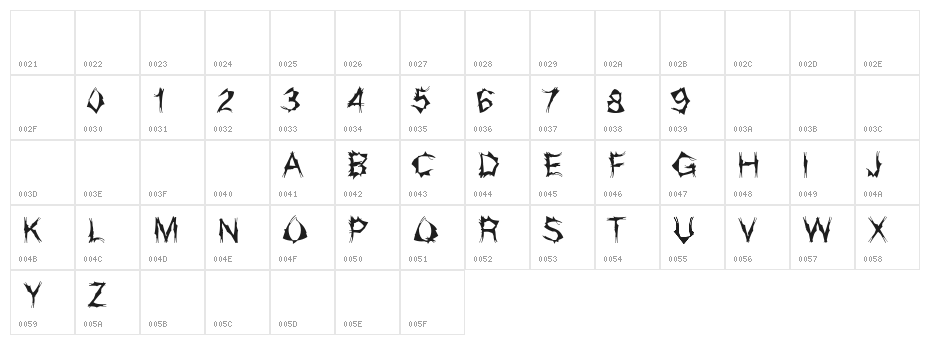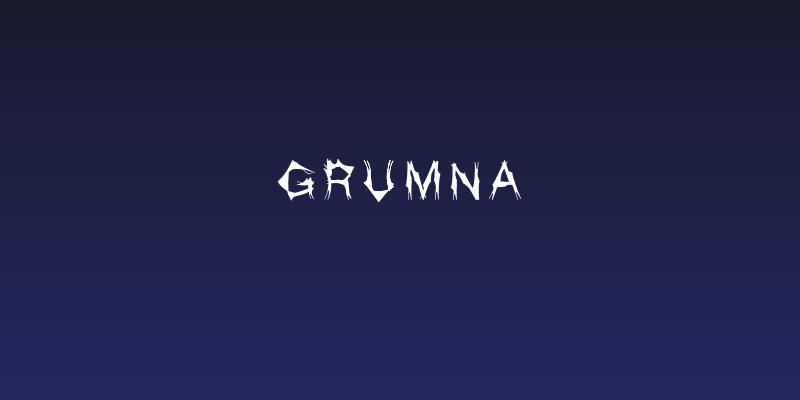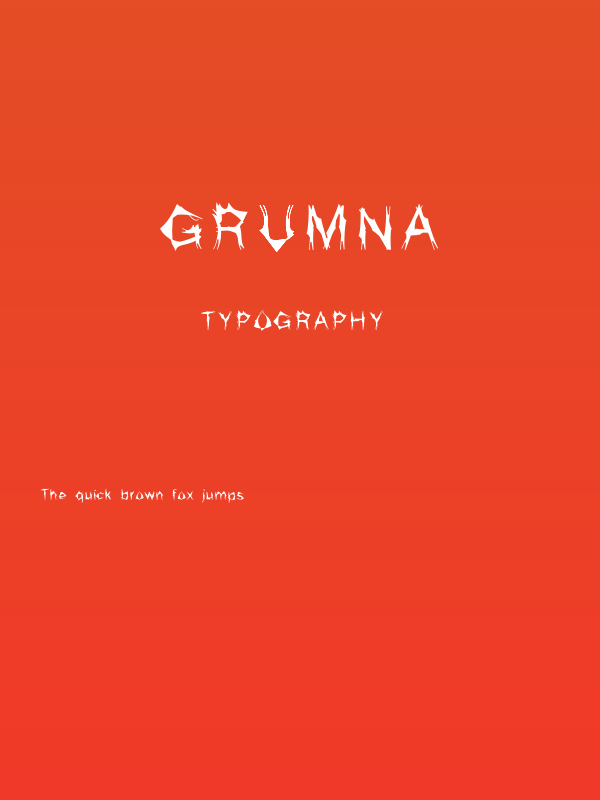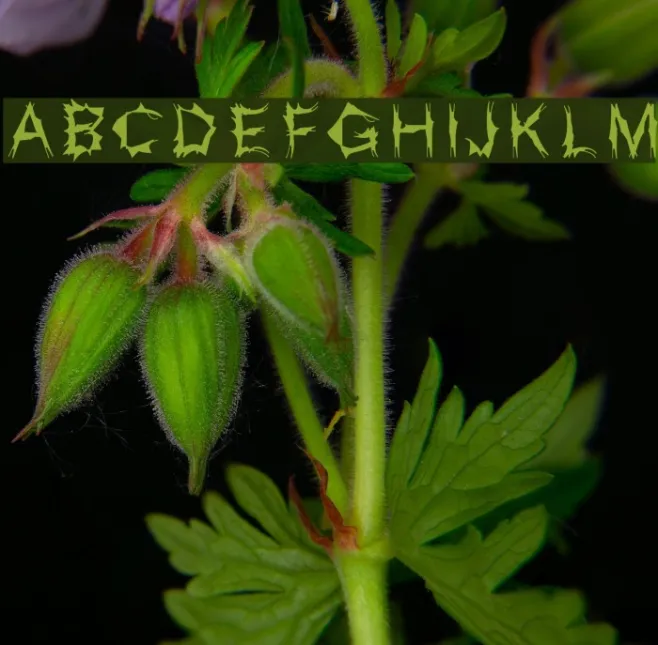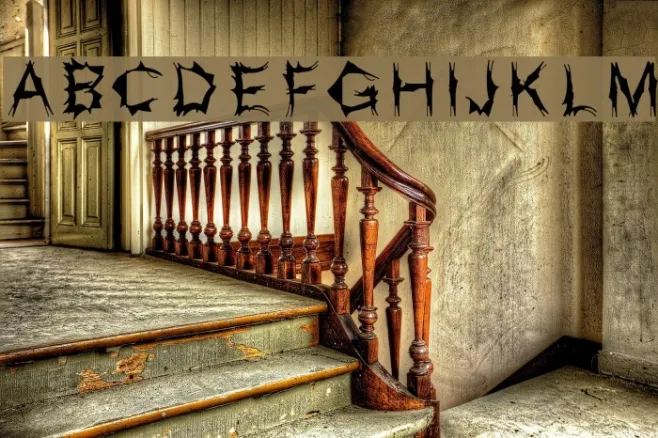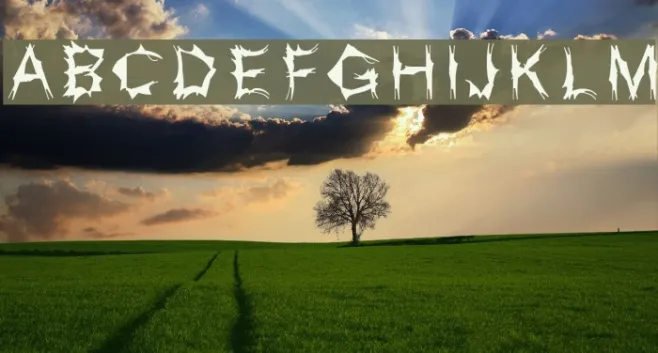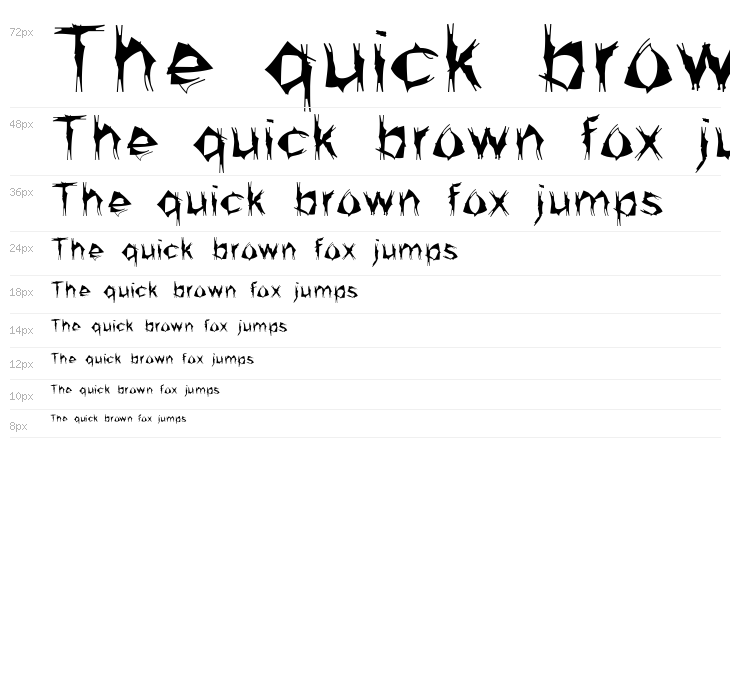
Grumna Font
Grumna Description
This font features a highly decorative and edgy design, characterized by sharp, thorn-like extensions and irregular shapes. The letters have a jagged, almost chaotic appearance, giving it a distinctly aggressive and rebellious feel. The strokes are uneven, with varying thickness that adds to the font's dynamic and intense style. It captures a sense of movement and energy, making it stand out as a bold statement piece. The unique design elements make it suitable for projects that require a strong visual impact.
GRUMNA UPPERCASE
GRUMNA LOWERCASE
GRUMNA OTHER CHARS
| Proposed Projects | Ideal for horror-themed posters, edgy album covers, or rebellious fashion branding. |